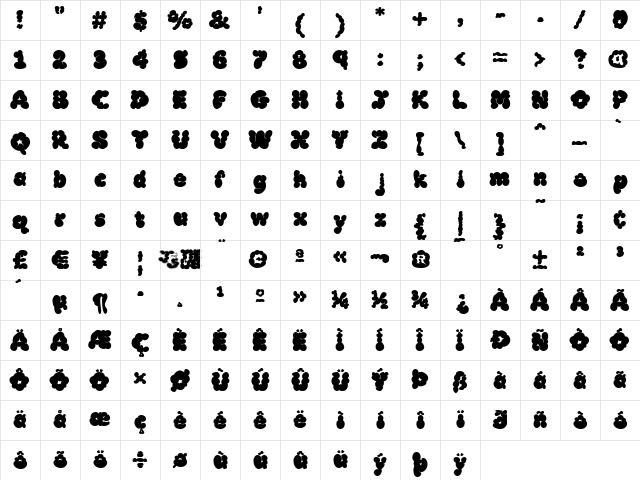
Complete McKloud Black Regular glyph index. Displaying only characters natively supported by McKloud Black Regular font.
Design Context for McKloud Black
McKloud Black is a composed and adaptable typeface that performs quietly and consistently across a wide range of design contexts.